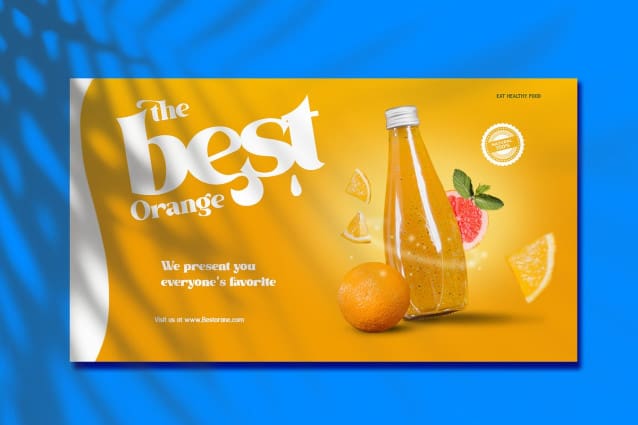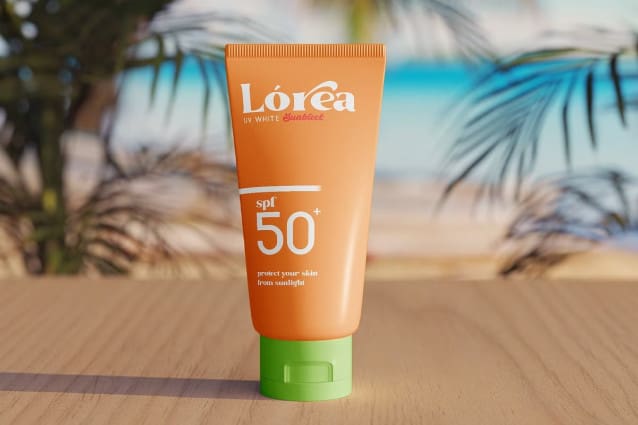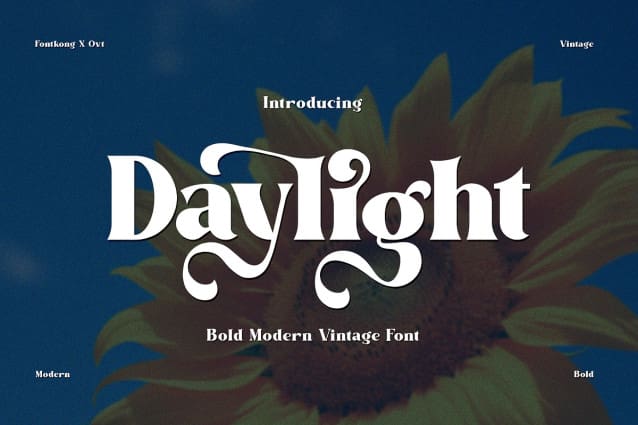
Daylight Vintage Font
Daylight Vintage Font a striking font that blends modern flair with nostalgic charm. With its bold lines and retro vibes, Daylight brings a sense of adventure and excitement to any project.
Crafted with precision and care, Daylight captures the essence of vintage typography while adding a contemporary twist. Whether you’re designing posters, labels, or apparel, this font commands attention and makes a statement.
Featuring uppercase and lowercase letters, numbers, and punctuation marks, Daylight offers versatility and flexibility for creative expression. Its bold strokes and distinctive style ensure that your designs stand out from the crowd with confidence and flair.
Illuminate your designs and evoke the boldness of days gone by with Daylight Vintage Font, where modernity meets vintage in perfect harmony.